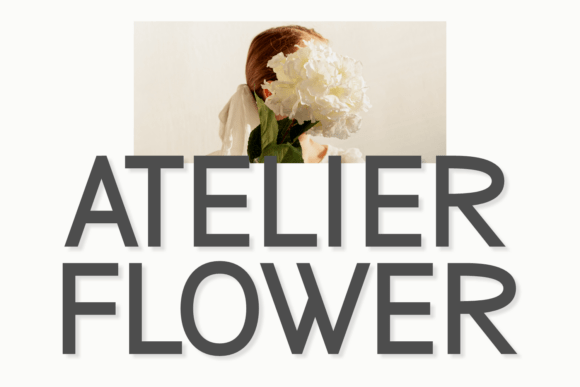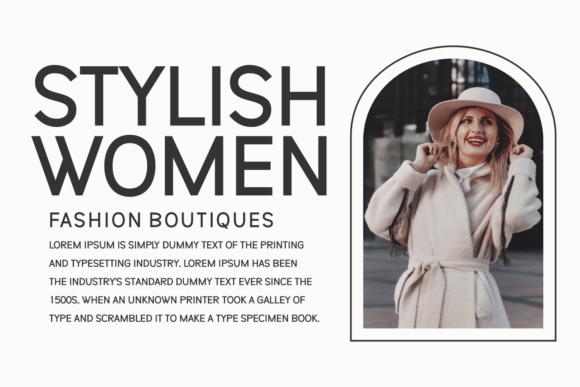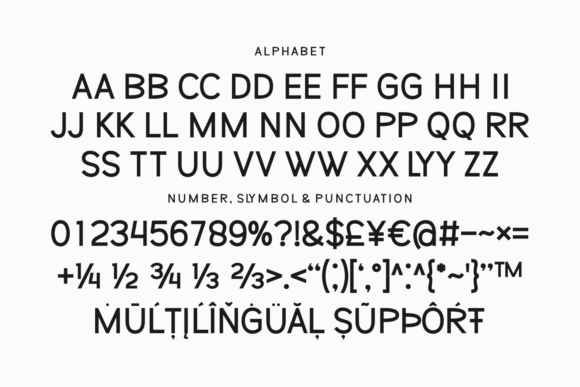
Introduction to Mentho Font
Have you ever stared at a blank design canvas, searching for that perfect font to bring your creative vision to life? As designers, we’ve all been there – the blank page staring back at us, begging for inspiration. It’s in these moments that the right font can be a game-changer, elevating our designs from good to great. That’s where the Mentho Font comes in – a high-quality, sans-serif font that’s about to revolutionize your design process.
As a valuable design resource, the Mentho Font offers a unique blend of elegance and sophistication, making it an ideal choice for a wide range of creative projects. From sleek magazine layouts to attention-grabbing posters, this versatile font is sure to deliver. And the best part? With its transparent background, you can easily layer and customize your design to fit your vision. Whether you’re working on a free download or a paid project, the Mentho Font is the perfect addition to your design arsenal.
So why settle for a generic font when you can have a high-quality, creative solution like the Mentho Font? With its buttery-smooth execution and sleek design, this font is sure to take your designs to new heights. In this article, we’ll dive deeper into the world of Mentho Font, exploring its features, benefits, and creative possibilities.
Key Features of Mentho Font
- Includes a comprehensive set of characters, including uppercase and lowercase letters, numbers, and special symbols.
- Designed with a modern and clean appearance, perfect for a wide range of creative projects, from digital art to print materials.
Honest Review: Mentho Font
I recently stumbled upon the Mentho Font, and I must say, it’s a refreshing addition to my design resource library. With a high quality aesthetic, it’s perfect for creative projects that require a modern twist.
- ✨ High-quality glyphs that are crisp and clear
- ✨ Excellent for designing logos, headings, and titles
- ✨ Transparent background makes it easy to overlay on images
However, there are a few limitations I’d like to mention:
- ⚠️ Limited character set, which might be a concern for some designers
- ⚠️ Not ideal for large blocks of text, as it can be quite heavy on the eyes
Overall, I’m quite impressed with the Mentho Font. While it may not be perfect, its unique design and high quality make it a valuable addition to any designer’s toolkit. If you’re looking for a design resource to add some flair to your creative project, I’d definitely recommend giving it a try.
Mentho Font
Tips for Getting the Most Out of Mentho Font
Mentho Font is a high-quality design resource that can add a unique touch to your creative project. To get the most out of it, use it on a transparent background to create a clean and modern look. You can also experiment with different font sizes and colors to create a visually appealing design.